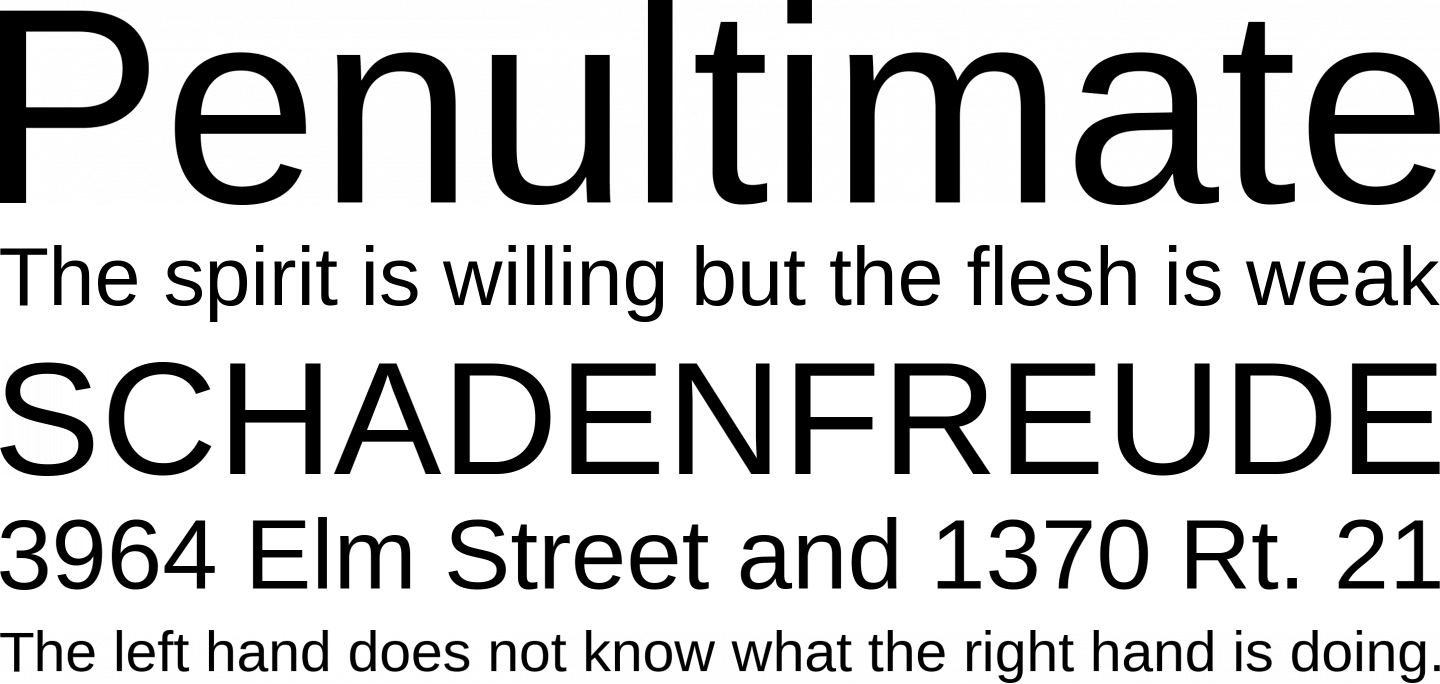
Arimo google font.
These fonts are typically viewed as cool sleek and modern.
Arimo offers improved o.
Arimo font pairings.
Download arimo font family free for commercial use arimo was designed by steve matteson as an innovative refreshing sans serif design that is metrically compatible with arial.
Think of sans serif fonts as serif s more up to date sophisticated cousin.
The power of font psychology.